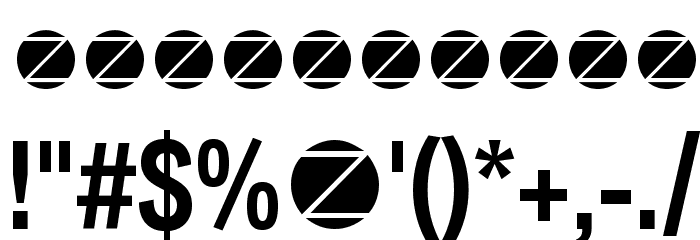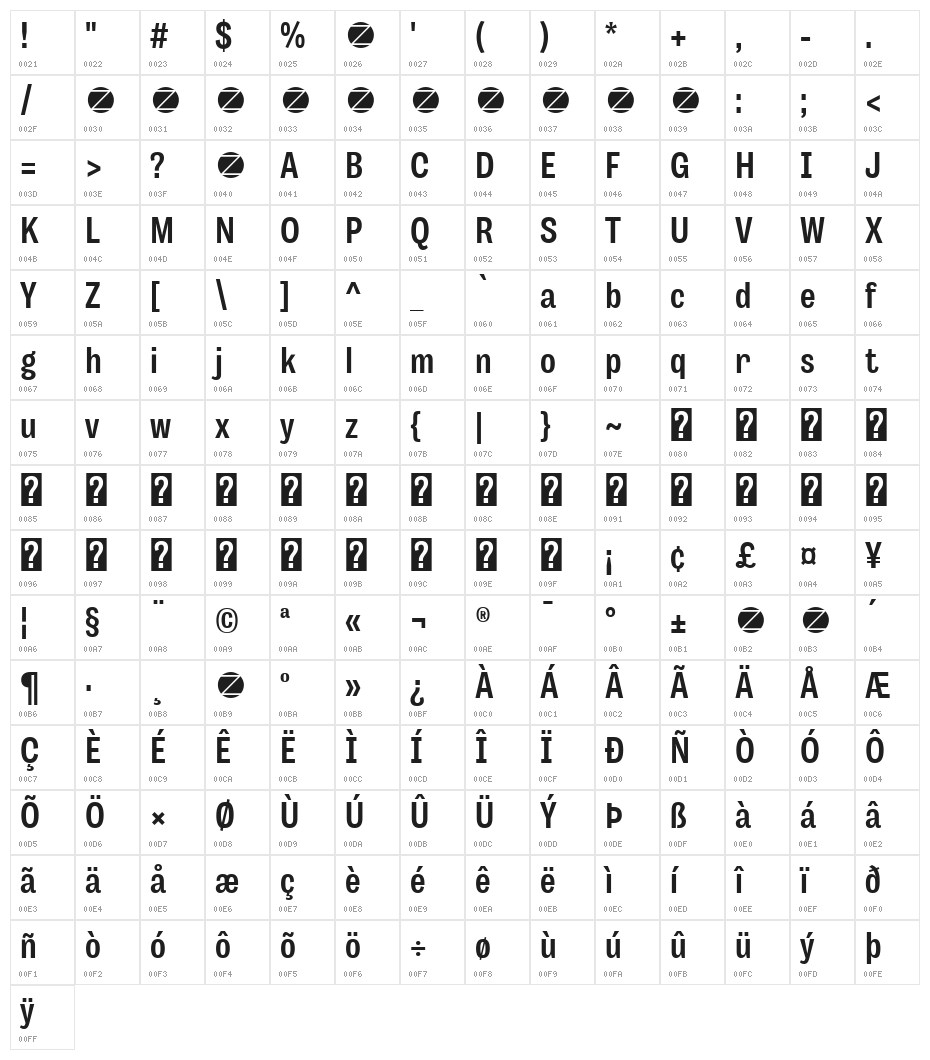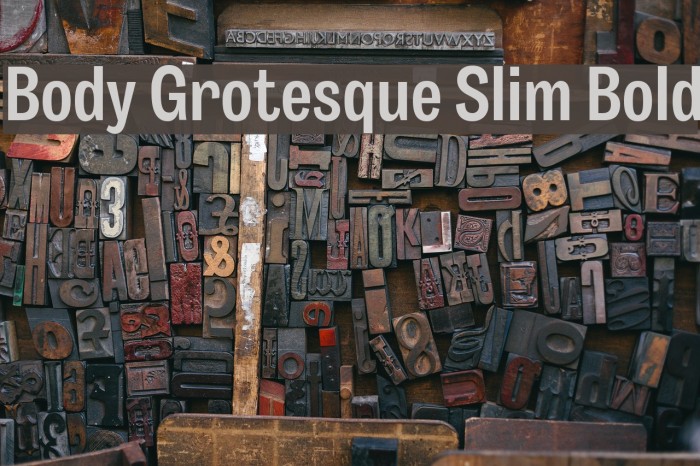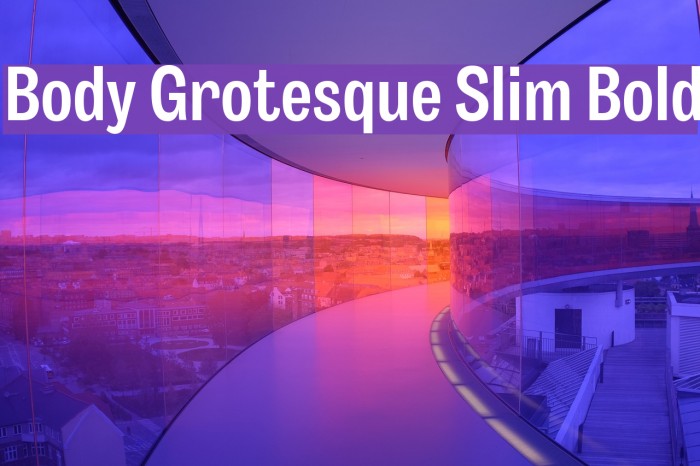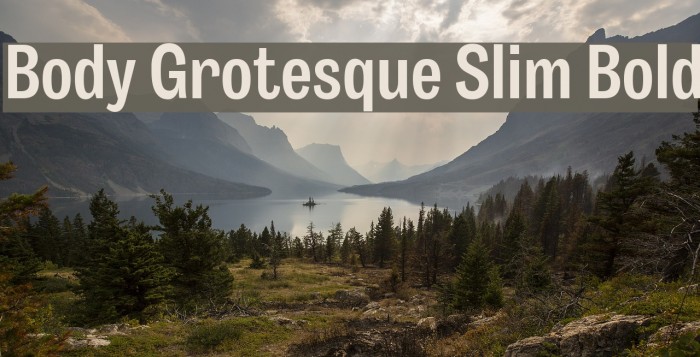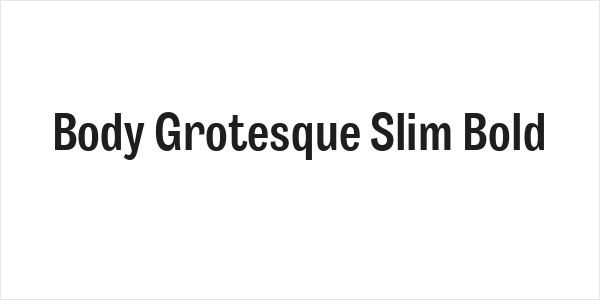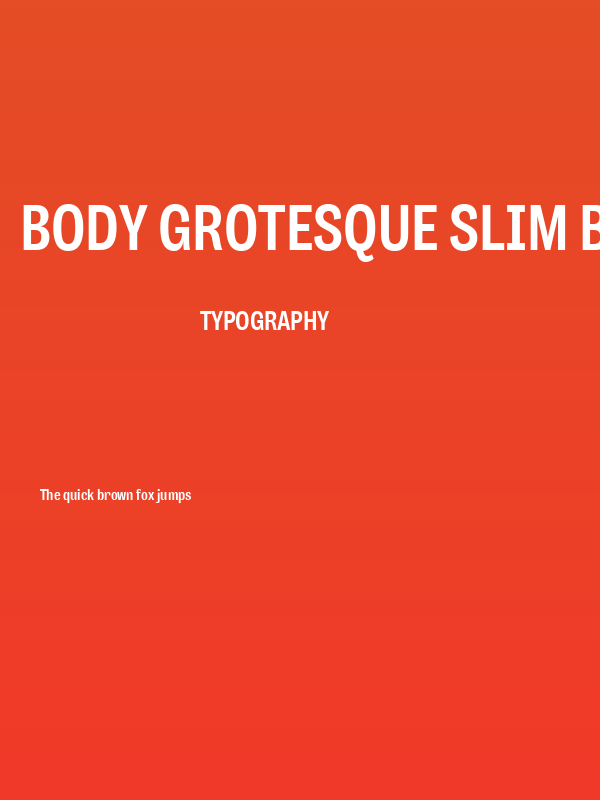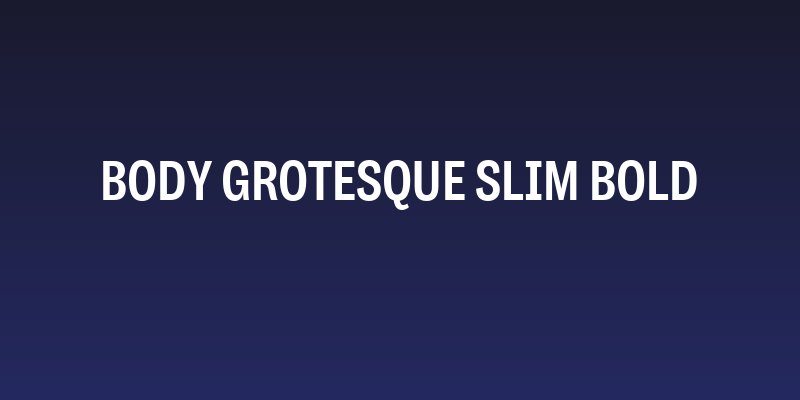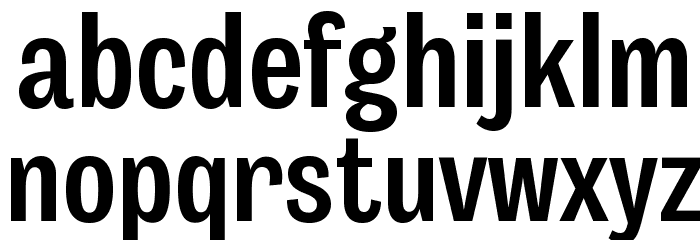
Body Grotesque Slim Bold Font
Body Grotesque Slim Bold Description
This font features a bold and modern design with a clean, sans-serif style. The characters are uniformly thick, providing a strong visual impact. The uppercase and lowercase letters are well-proportioned, with a consistent line weight that enhances readability. The numerals and special characters maintain the same boldness, ensuring a cohesive look across all text elements. The overall appearance is sleek and contemporary, making it suitable for various design applications.
Use CaseHeadlines, Logos, Branding
Proposed ProjectsIdeal for branding, advertising, headlines, and digital media where a strong, modern presence is desired.